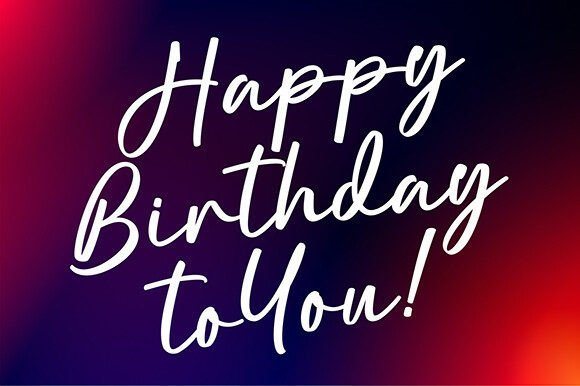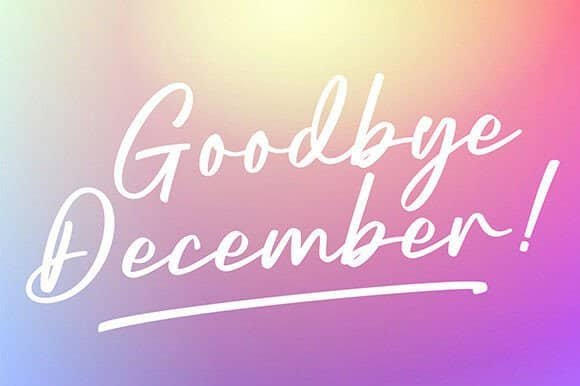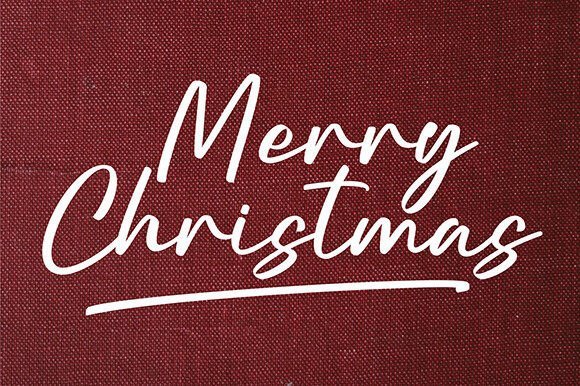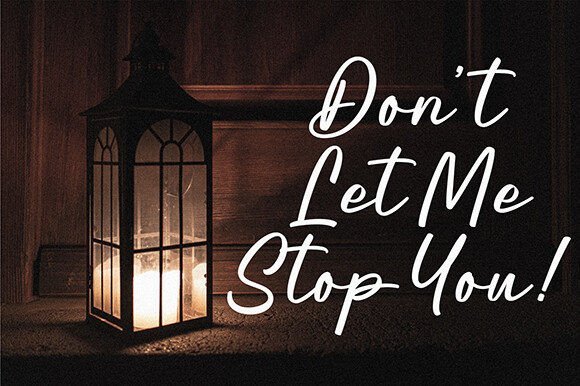
Beloved Angles Font is a Brush Script font.It’s perfect for branding, crafting, invitations, stationery, wedding designs, social media posts, advertisements, product packaging, product designs, labels, posters, photography, special events, or anything.